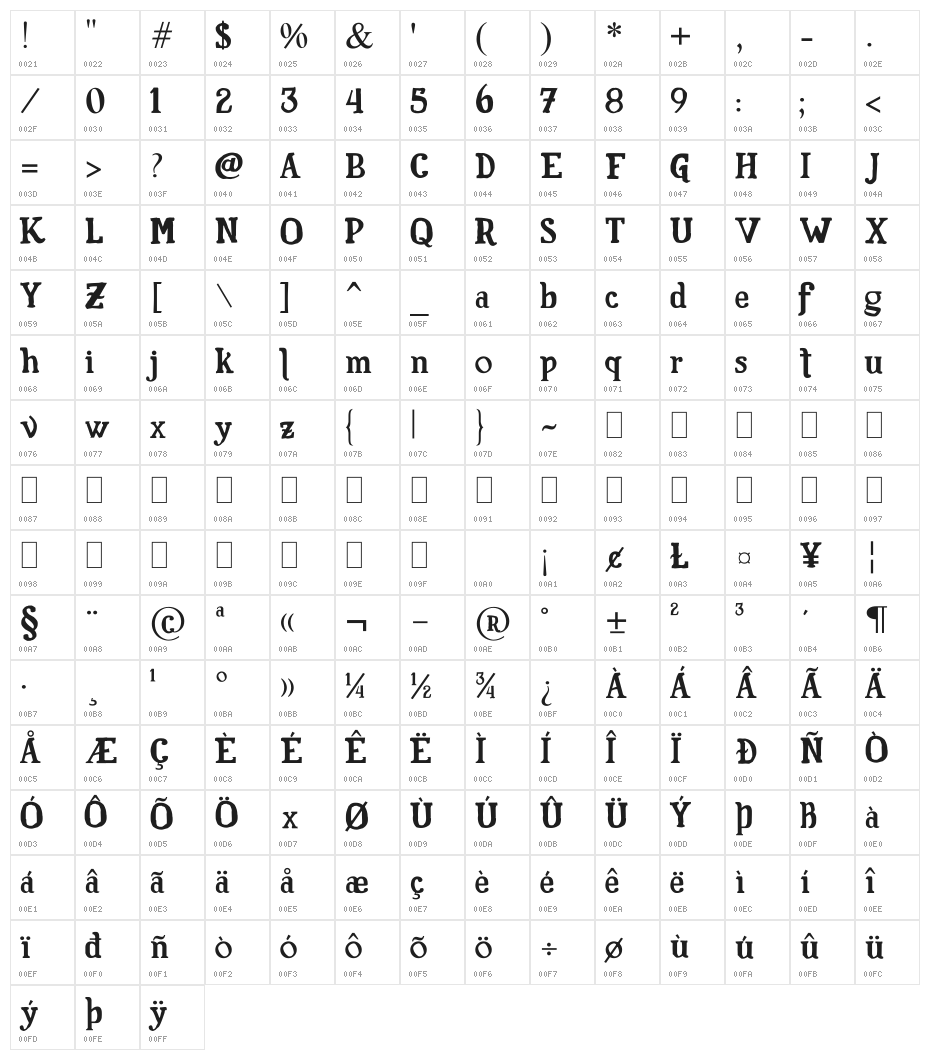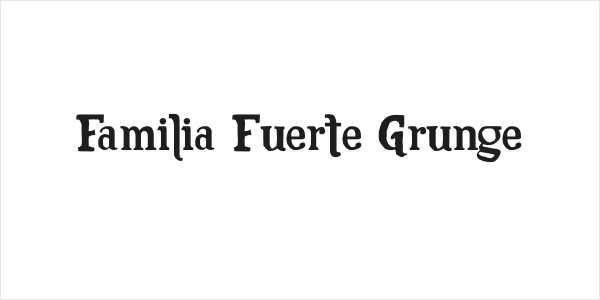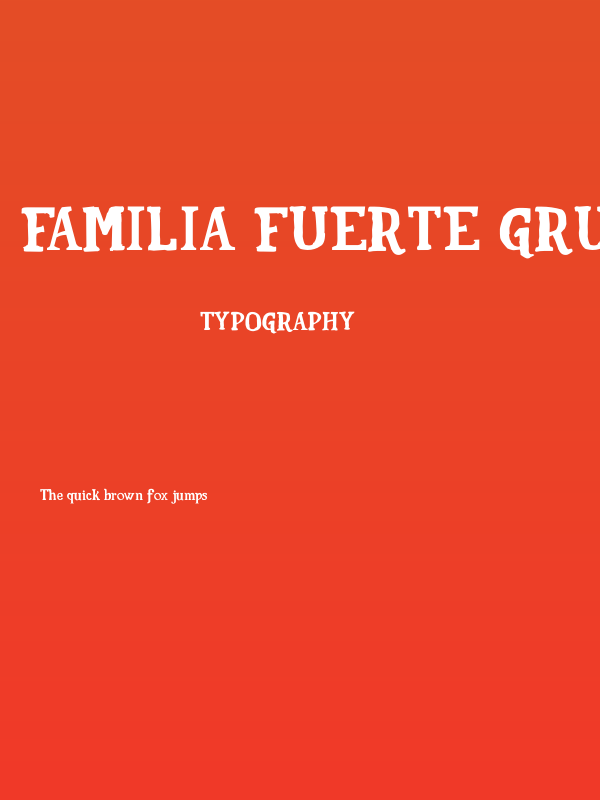
Familia Fuerte Grunge Font
Familia Fuerte Grunge Description
This font exhibits a bold and rugged style with a grunge aesthetic, characterized by its uneven edges and distressed appearance. The uppercase letters are strong and commanding, while the lowercase letters maintain a consistent style with a slightly more playful touch. The numerals are bold and clear, ensuring readability. Special characters are uniquely styled, adding to the font's overall distinctive look. This font is perfect for projects that require a strong, impactful presence with a touch of vintage or rebellious flair.
| Overall Style | Vintage, Grunge |
| Proposed Projects | Ideal for album covers, posters, branding for edgy or alternative products, and any design needing a bold, vintage touch. |